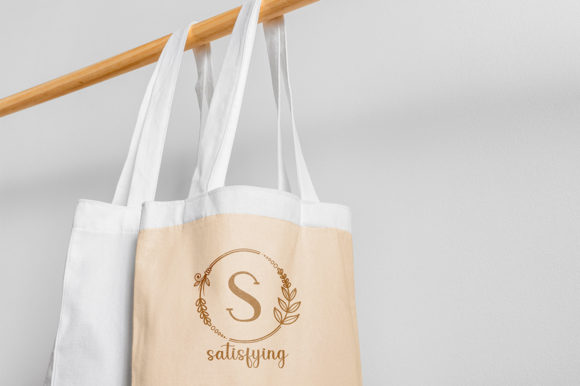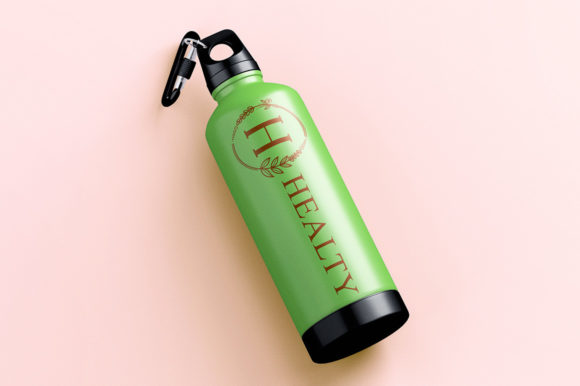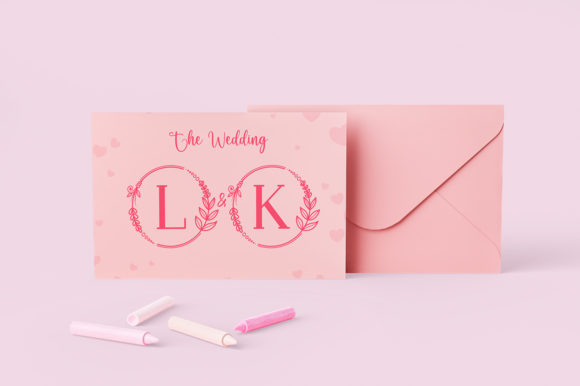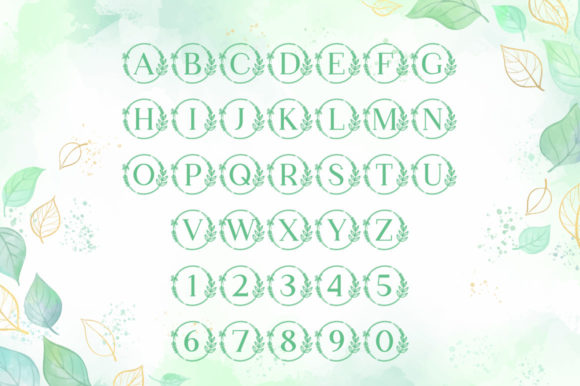
Introduction to Nathasa Monogram Font Font
Fonts play a crucial role in design, and the Nathasa Monogram Font font is a typeface that brings both character and versatility to any project. Whether you’re working on a branding project, a website, or a print design, the Nathasa Monogram Font font offers a unique style that can elevate your work.
Nathasa Monogram is a lovely, delicate and authentic decorative font.
Use it for a wide range of design occasions such as logos, apparel, photography, watermarks, quotes, blog headers, posters, weddings, invitations, stationery, branding, and much more .
Key Features of Nathasa Monogram Font Font
Why Choose Nathasa Monogram Font Font?
The Nathasa Monogram Font font is more than just a typeface – it’s a design tool that helps you communicate your message with style and clarity. Its unique character set and versatile design make it suitable for a wide range of applications, from elegant invitations to bold headlines.
With its carefully crafted letterforms and balanced proportions, the Nathasa Monogram Font font ensures readability and visual appeal across all mediums.
What makes Nathasa Monogram Font font special?
The Nathasa Monogram Font font stands out with its unique design, exceptional readability, and versatility across various design applications.